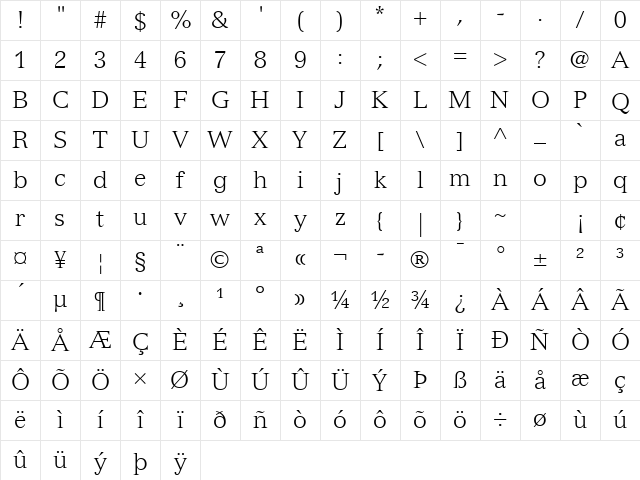
Complete Versailles LT Com 45 Light glyph index. Displaying only characters natively supported by Versailles LT Com 45 Light font.
Versailles LT Com is a composed and adaptable typeface that performs quietly and consistently across a wide range of design contexts. Its slender proportions lend an understated elegance to any composition.